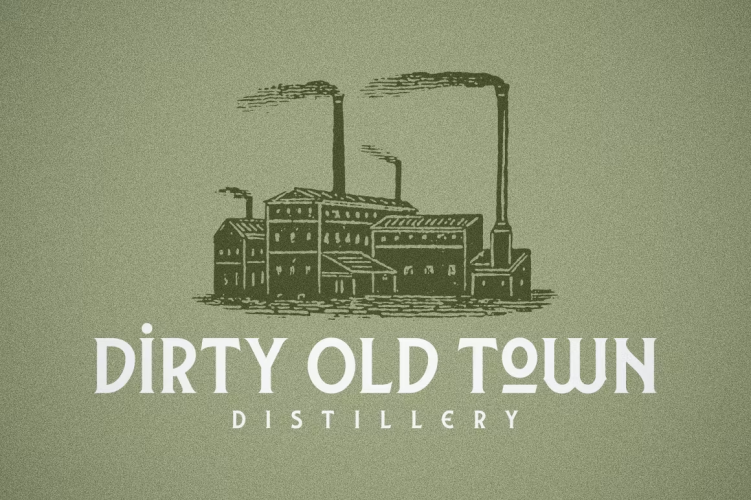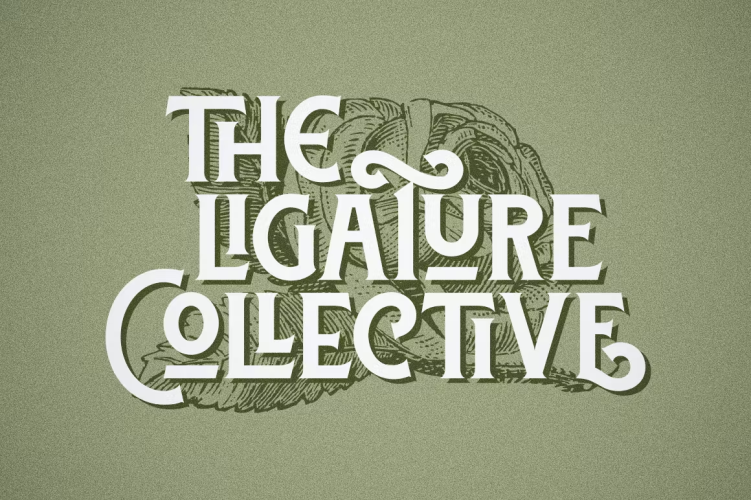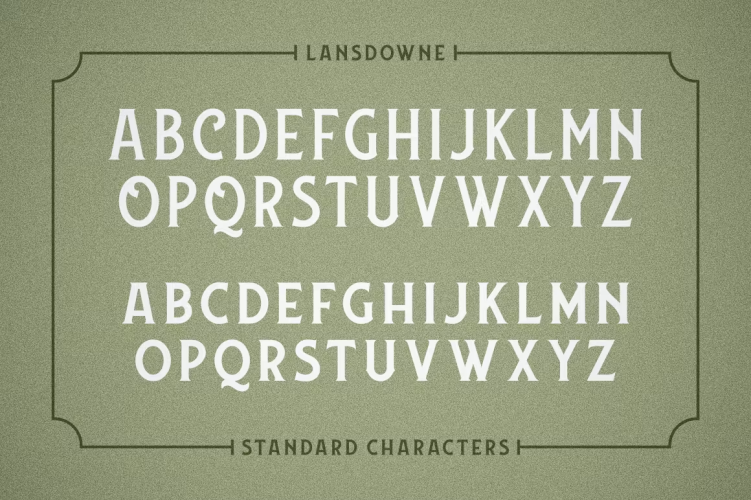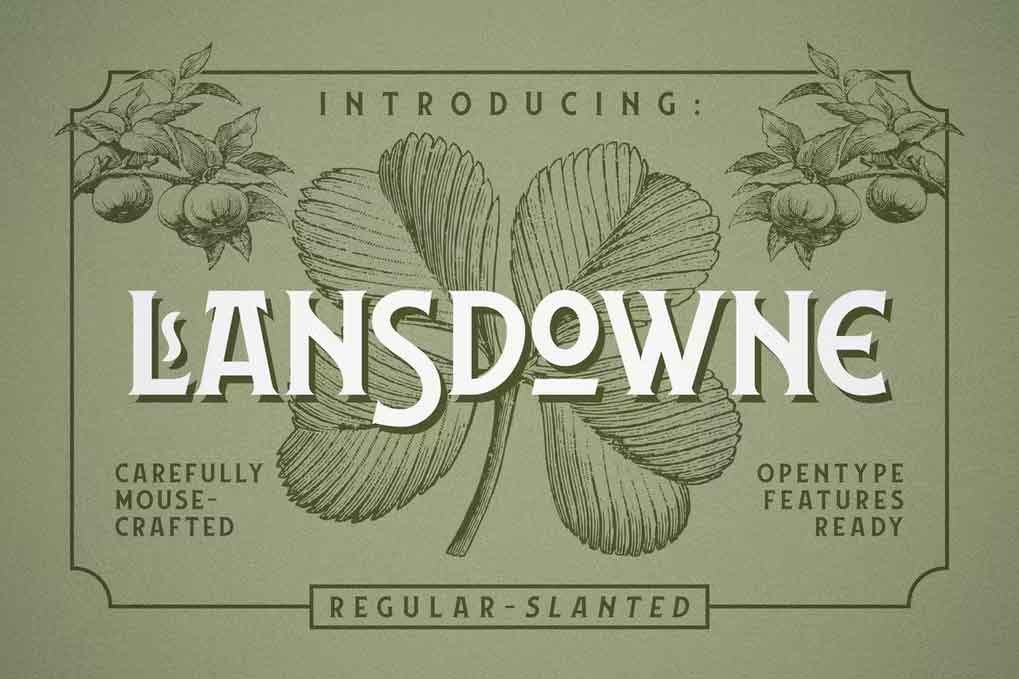
Lansdowne Font
Introducing Lansdowne, vintage all-caps typeface. Perfect blend between clean and vintage themed typework, inspired by the old advertisement letters. Lansdowne’s 470+ glyphs give you strong, sharp, yet clean feels without sacrificing its vintage/classic touch. Mouse-crafted with passion to quench your drought of versatile classic typeface.
Lansdowne Font is a Serif Fonts font that brings a professional and versatile look to your projects. Introducing  Lansdowne , vintage all-caps typeface.